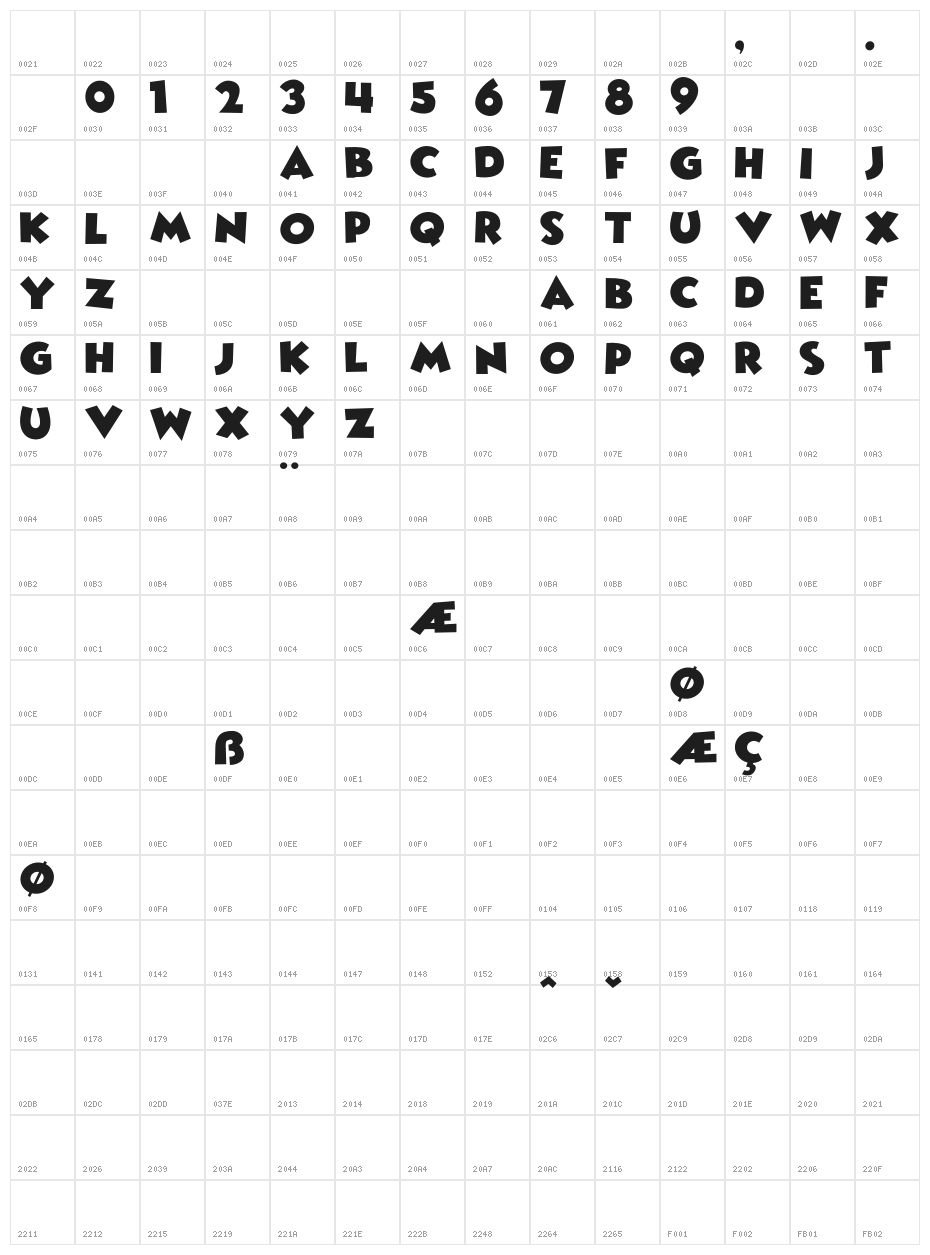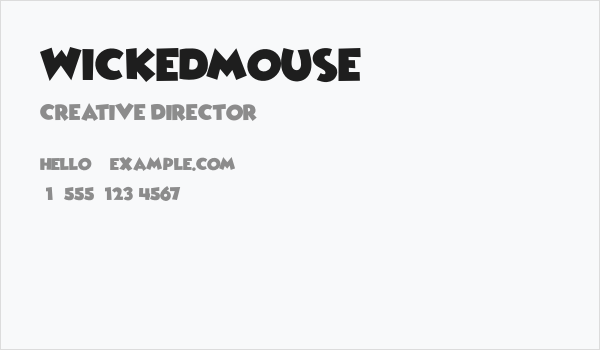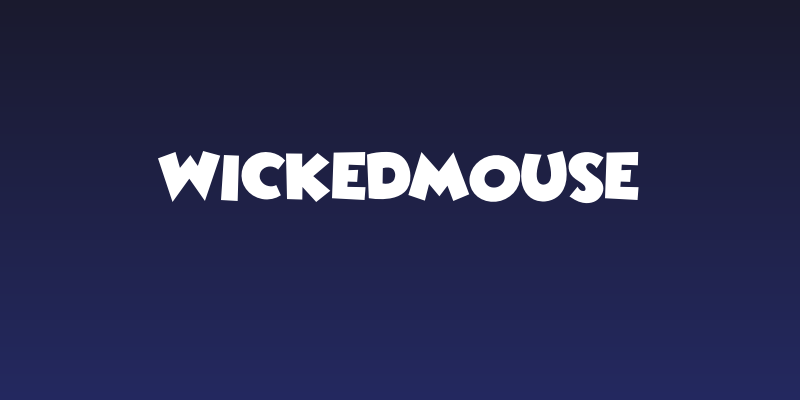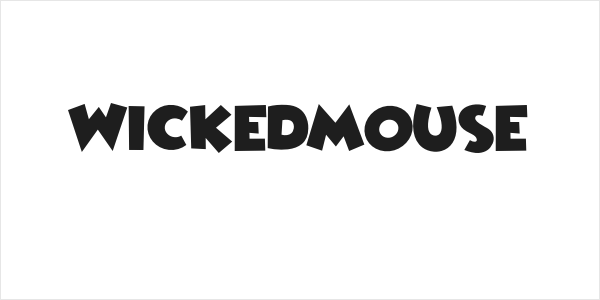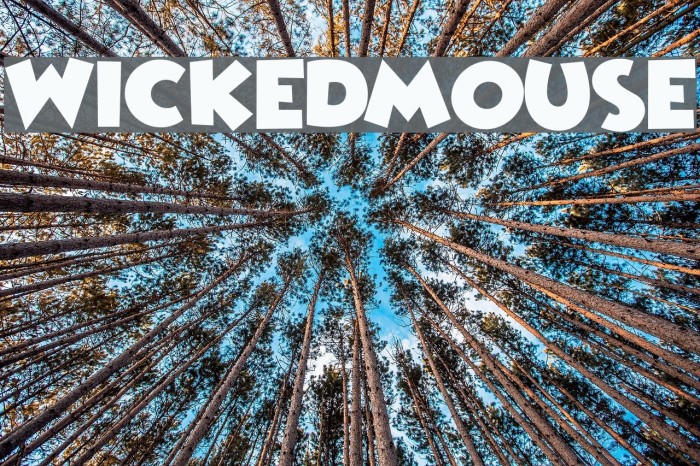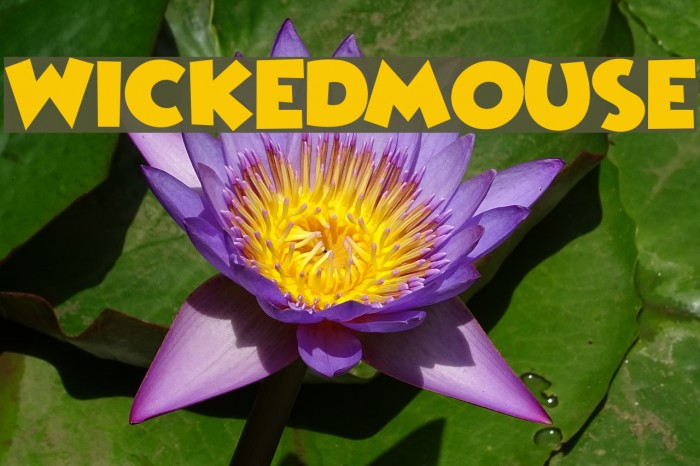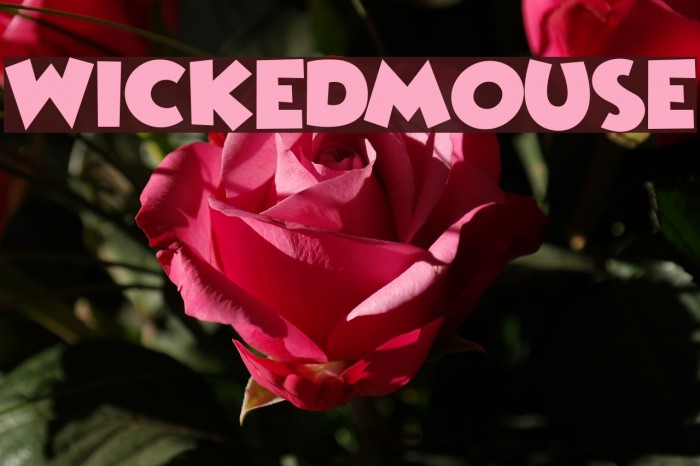
WickedMouse Font
This font features a playful and bold design with exaggerated, irregular shapes that give it a whimsical and cartoonish appearance. The letters are thick and heavy, with a slightly uneven baseline that adds to its quirky charm. The uppercase and lowercase characters maintain a consistent style, with rounded edges and a sense of movement. The numbers follow the same playful aesthetic, making them stand out with their bold presence. The font includes basic punctuation marks, which are also designed with the same bold and playful characteristics. Overall, this font exudes a sense of fun and creativity, making it ideal for projects that require a lively and engaging visual impact.
| Overall Style | Playful, Cartoonish |
| Proposed Projects | Ideal for children's books, comic strips, playful branding, and party invitations. |